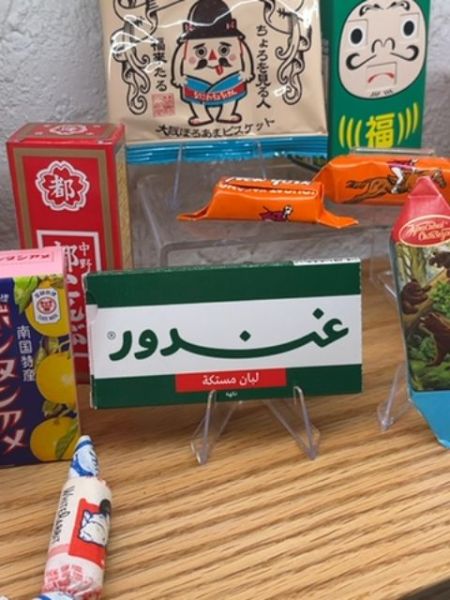
A variety of snacks and sweets, including gum and candies.
The typography varies across the products, featuring bold and playful fonts. For example, some packages use sans-serif fonts with thick strokes, conveying a sense of fun and energy. The mix of Japanese characters with occasional English words exemplifies a dynamic and modern approach to international packaging.
The packaging features a mix of colors and playful designs, which include cartoon characters and bold colors such as red, green, and yellow. Each product seems to have unique, vibrant packaging that caters to a youthful and lively aesthetic.
- Japanese packaging often includes cute character designs.
- Bright colors are commonly used to attract attention on shelves.
- Each package features unique elements that reflect brand identity.